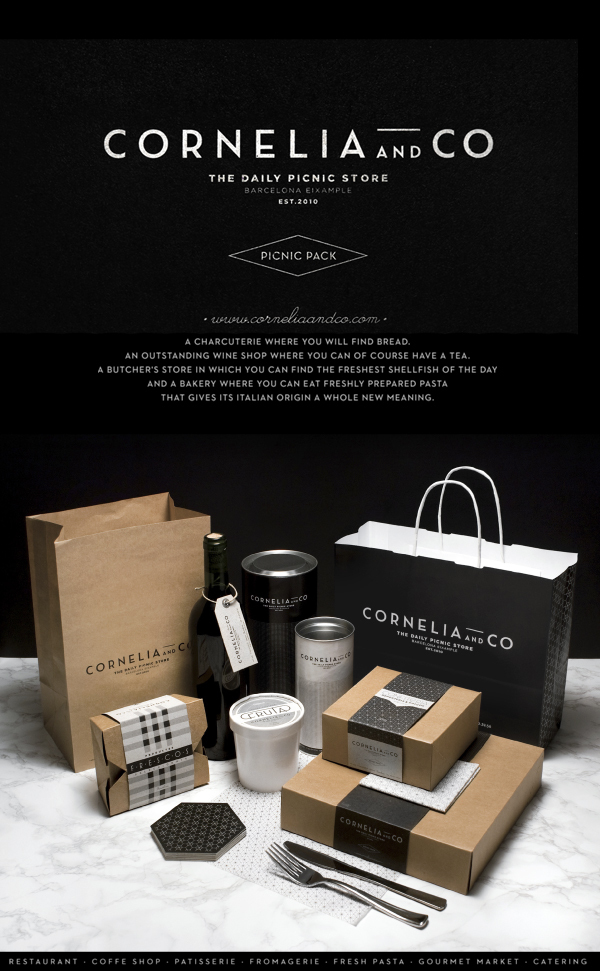
Choosing a type or font for a design can sometimes be grueling, because there are times where your design and the type you chose falls in exactly the way you want it. But there are times where you have to look for the right type for your design – a typeface that fits properly into your design, thus completing your jigsaw puzzle of a design.
But as a graphic designer, you’re not just dealing with elements of design; you have to deal with external factors such as your deadline, creative block, and, of course, your client. Now, having to choose the right typeface for your design and dealing with what your client wants can be a bit tricky and nasty for you in the long run.
So, what do you tell your client that the font you chose is better choice than the one he wants?
If you haven’t been in this situation yet or you’re still figuring out what to say, we’ve come up with a few things you can use to persuade your client to go with your typeface idea.
Legibility
Typefaces are meant to be legible along with the design you created. Normally, you, being the designer, have a better grasp of what can easily be read and not on your body of work. But don’t tell him that way, educate him of the intricacies of typography – that there are certain typefaces that looks better on certain circumstances.
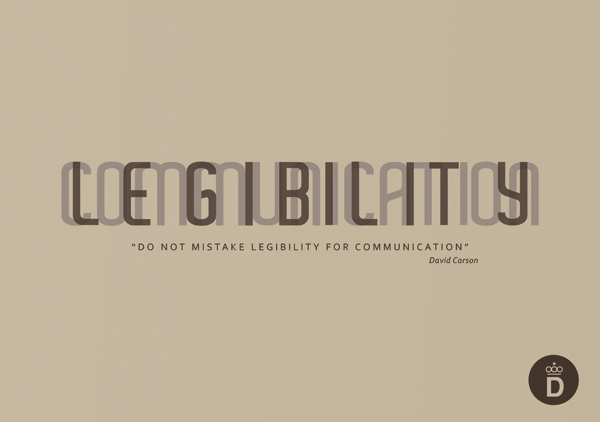
Professional vs. Unprofessional
You can always go on with the professional and unprofessional speech – it’s kind of like the good cop-bad cop thing we see on the movies. Except, here you’ll be explaining the good elements the typeface you chose bring on the table – It’s readable, it complements the shapes and images, it’s the best font for your media (print, digital, etc.). You can try to present the typeface you chose and the one your client chose on your design, and point out the differences.
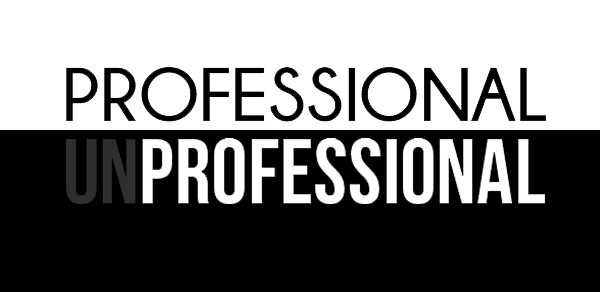
It’s not about them, it’s about the market
Sometimes clients get too attached on a project that you’re working on. That’s fine; it’s theirs in the first place. But sometimes it also gets on your way of developing their projects into full potential. When your client gets too attached or goes overboard on what you have to do on the project, make sure remind him that he’s commissioning this project to attract people, to raise awareness, or for the aesthetic pleasure of many.
Explain Your Chosen Typeface’s Versatility
You can explain to your clients the inherent versatility your chosen typeface. This is suitable for designers who are working on logo projects as typefaces used on logos must be versatile and adaptable when used in different media. You further show the effectiveness of the typeface you chose by creating a presentation where the logo is applied to different media, e.g., business cards, website design, letterheads, magazines, etc.
CORNELIA and CO [Brand identity & Packaging] by Oriol Gil
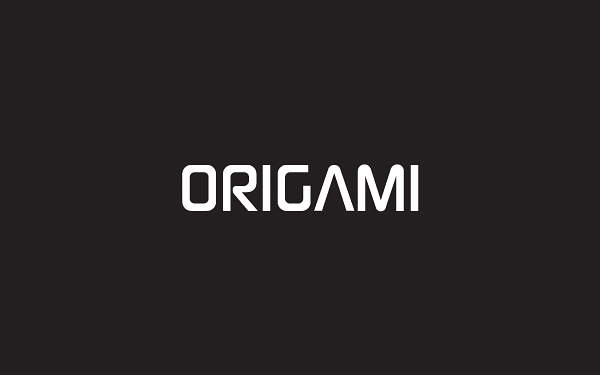
ORIGAMI by Mohammed Mirza
Final Note
Remember that, as a graphic designer, you’re not just there to create design for the sake of it. You have to attune yourself of teaching people, including your clients, about the intricacies of graphic design. Because in the end, it’ll eventually have an effect on the industry you’re working in and your career.